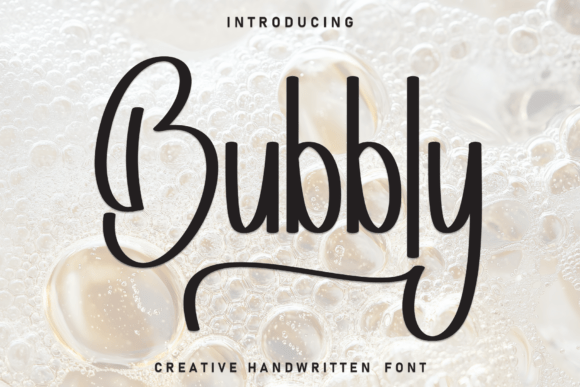
Discover the Charm of Bubbly Font: Elevate Your Designs with Whimsy and Warmth
I’ll never forget the time I was working on a wedding invitation project, and my client asked for a font that would make their guests feel like they’re part of a special celebration. I scoured the internet, tried out countless fonts, but nothing seemed quite right. That was until I stumbled upon Bubbly Font. Its radiantly enticing, handwritten charm instantly captured the essence of fun and allure I was looking for. In this article, I’ll share my experience with Bubbly Font, its unique features, and how you can use it to add a touch of playfulness to your designs.
A Personal Review: What I Love About Bubbly Font
Bubbly Font has quickly become one of my go-to fonts for projects that require a dash of whimsy and warmth. Here are some things I love about it:
- ✨ Unique Whimsicality: Bubbly Font has a distinct, hand-crafted feel that sets it apart from other fonts.
- ✅ Ease of Use: It’s incredibly easy to use, even for those who are new to designing with fonts.
- 💕 Emotional Connection: The font has a way of evoking emotions and creating a connection with the reader.
- 🎉 Versatility: Bubbly Font can be used for a wide range of projects, from wedding invites to greeting cards and more.
While Bubbly Font is an amazing addition to any design project, there are a few things to keep in mind:
- 🤔 Legibility at Small Sizes: Like many script fonts, Bubbly Font can be a bit tricky to read at very small sizes. It’s best used at larger sizes, such as 24 points or more.
- ⚠️ Overuse: While Bubbly Font is incredibly charming, using it excessively can make your design look cluttered. Balance is key.
Exploring Alternatives: 4 Fonts Similar to Bubbly Font
If you’re looking for more font options with a similar personality, here are a few alternatives:
- Lobster: A elegant, yet approachable script font perfect for formal events and sophisticated designs.
- Great Vibes: A fun, energetic script font ideal for designs that require a playful touch.
- Alex Brush: A lovely, hand-painted script font with a whimsical feel.
The Story Behind Bubbly Font: Designer Inspiration
Bubbly Font was crafted with love by a team of designers who wanted to create a font that would bring joy and warmth to people’s lives. Inspired by traditional handwriting and the art of lettering, they carefully crafted each letterform to exude a sense of playfulness and whimsy. The result is a font that feels both personal and approachable.
| Font Name | Bubbly Font |
| What makes Bubbly Font unique? | Its hand-crafted, whimsical design and warm, inviting feel. |
| Is Bubbly Font suitable for body text? | While Bubbly Font is beautiful, it’s best used for headings and titles. For body text, a more legible font is recommended. |
Bubbly Font is more than just a font; it’s a design element that can elevate your projects with its unique charm and whimsy. Whether you’re a designer, crafter, or creative hobbyist, this font is sure to become a favorite in your collection. So go ahead, give Bubbly Font a try, and watch your designs come to life with a touch of playfulness and warmth!